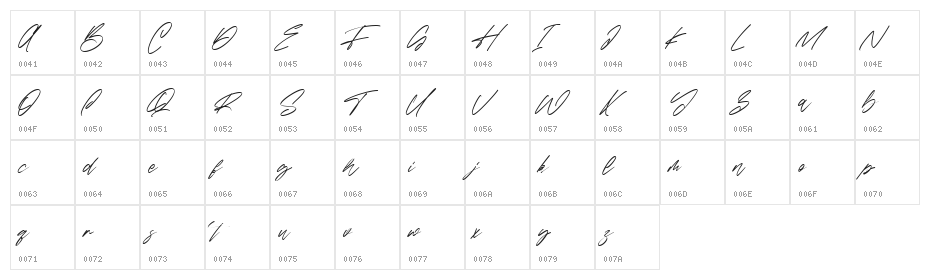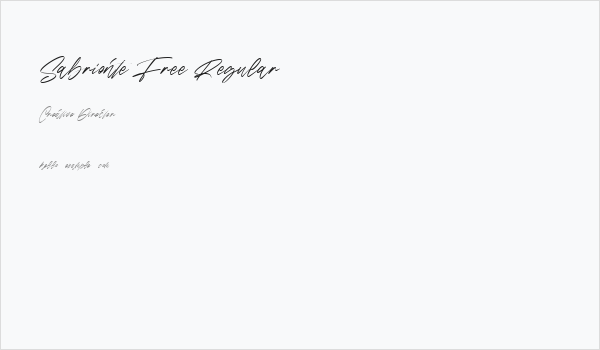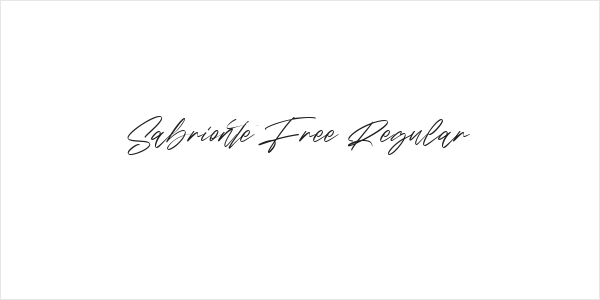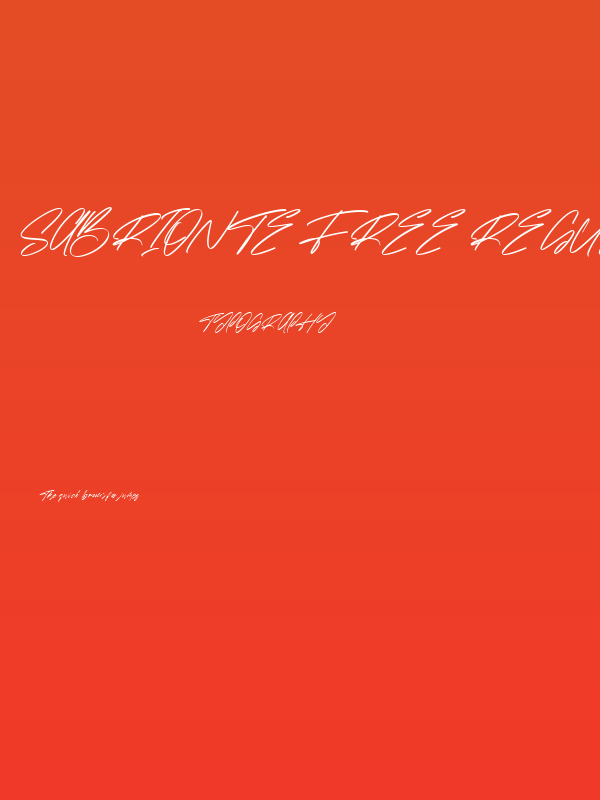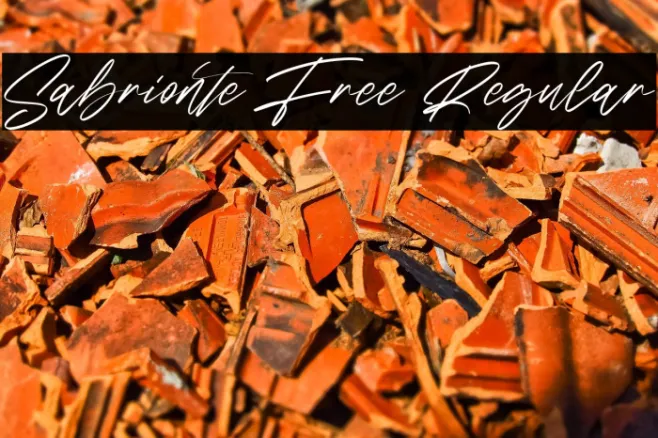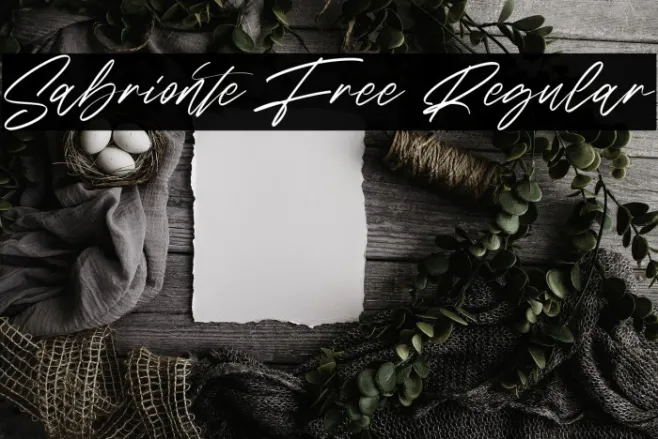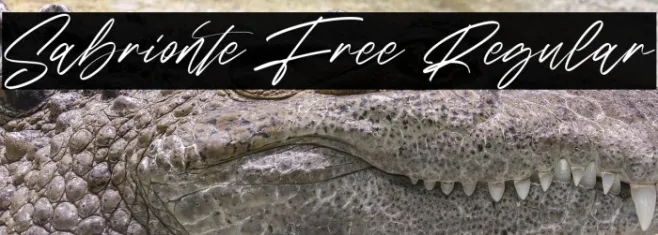
Sabrionte Free Regular Font
Sabrionte Free Regular Description
This font exudes a dynamic and flowing script style, characterized by its elegant and fluid letterforms. The strokes are smooth and connected, giving it a handwritten appearance that is both sophisticated and approachable. The uppercase letters are bold and prominent, while the lowercase letters maintain a consistent flow, enhancing readability. The overall design is modern yet timeless, making it versatile for various applications. The font's unique charm lies in its ability to convey a sense of personal touch and creativity, making it ideal for projects that require a humanistic and artistic flair.